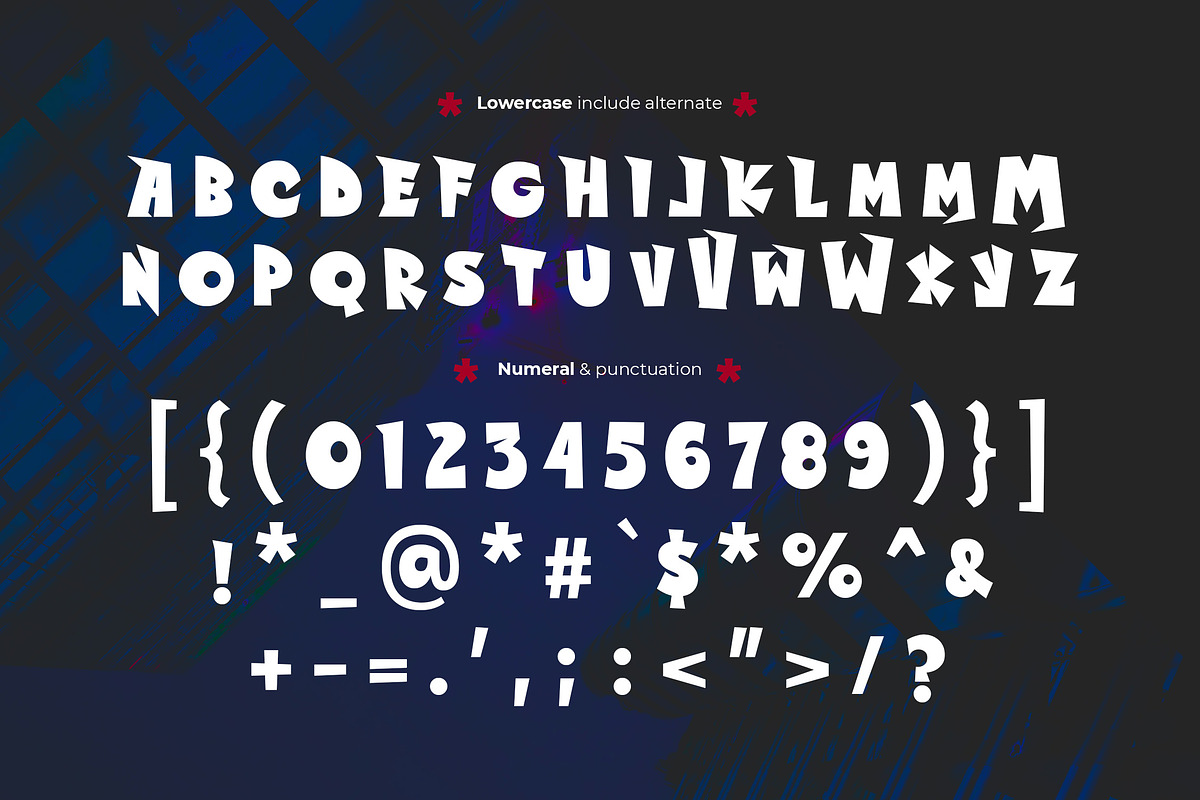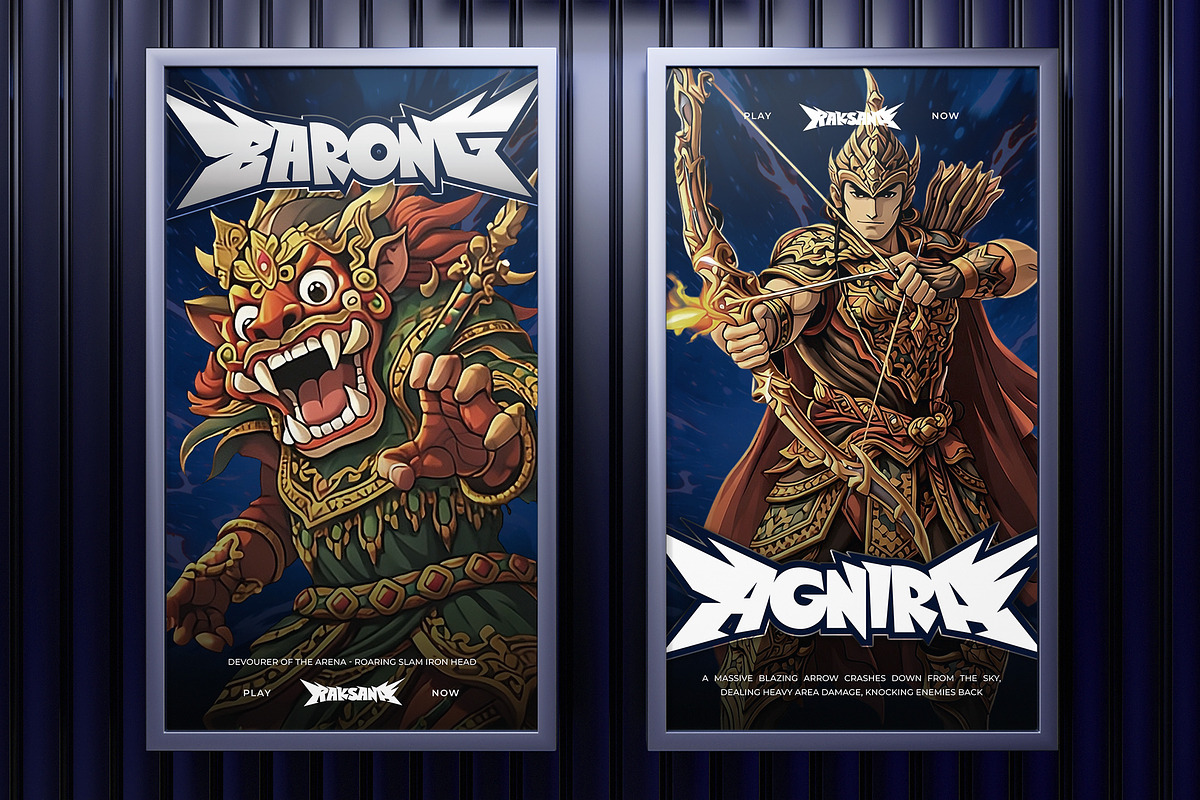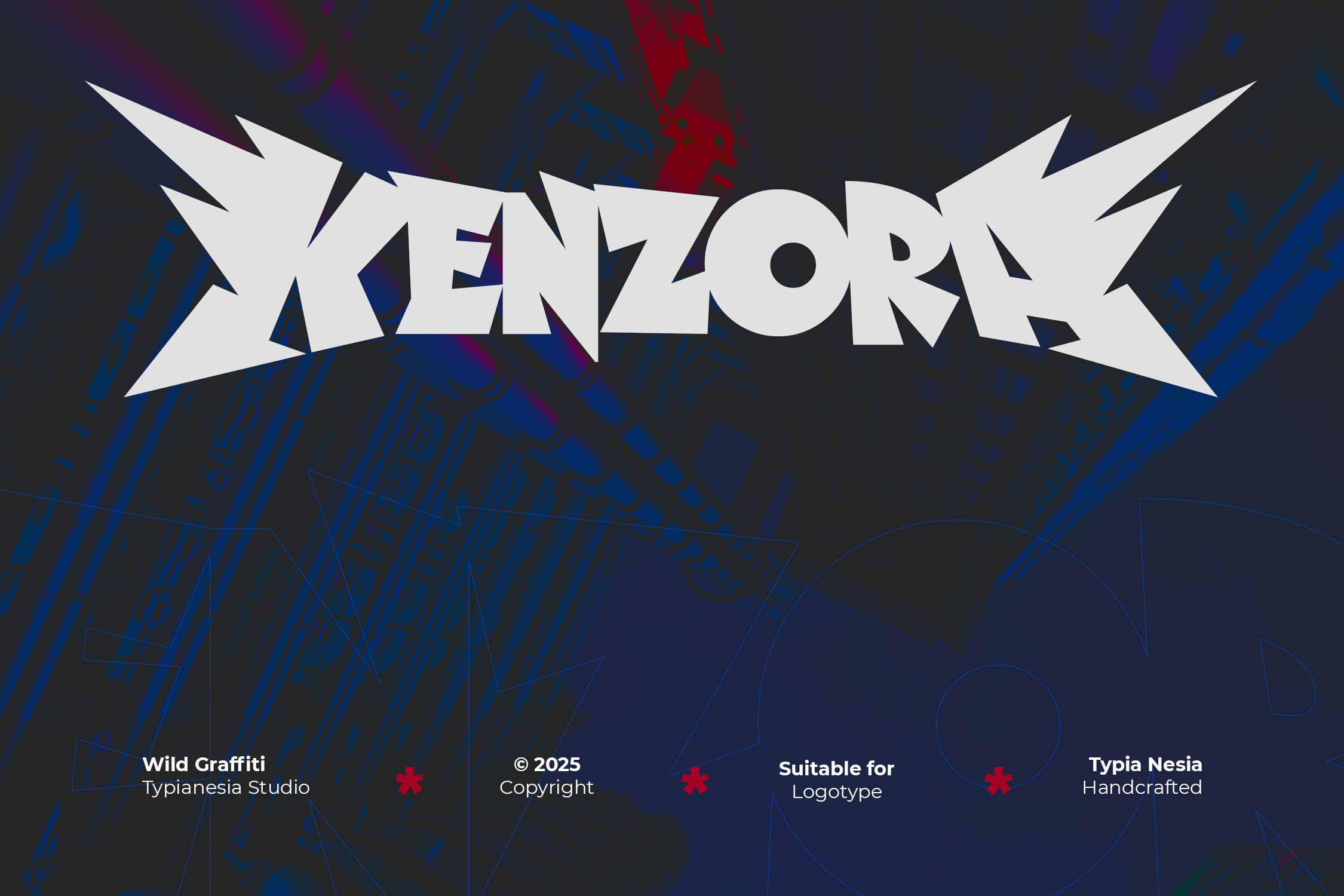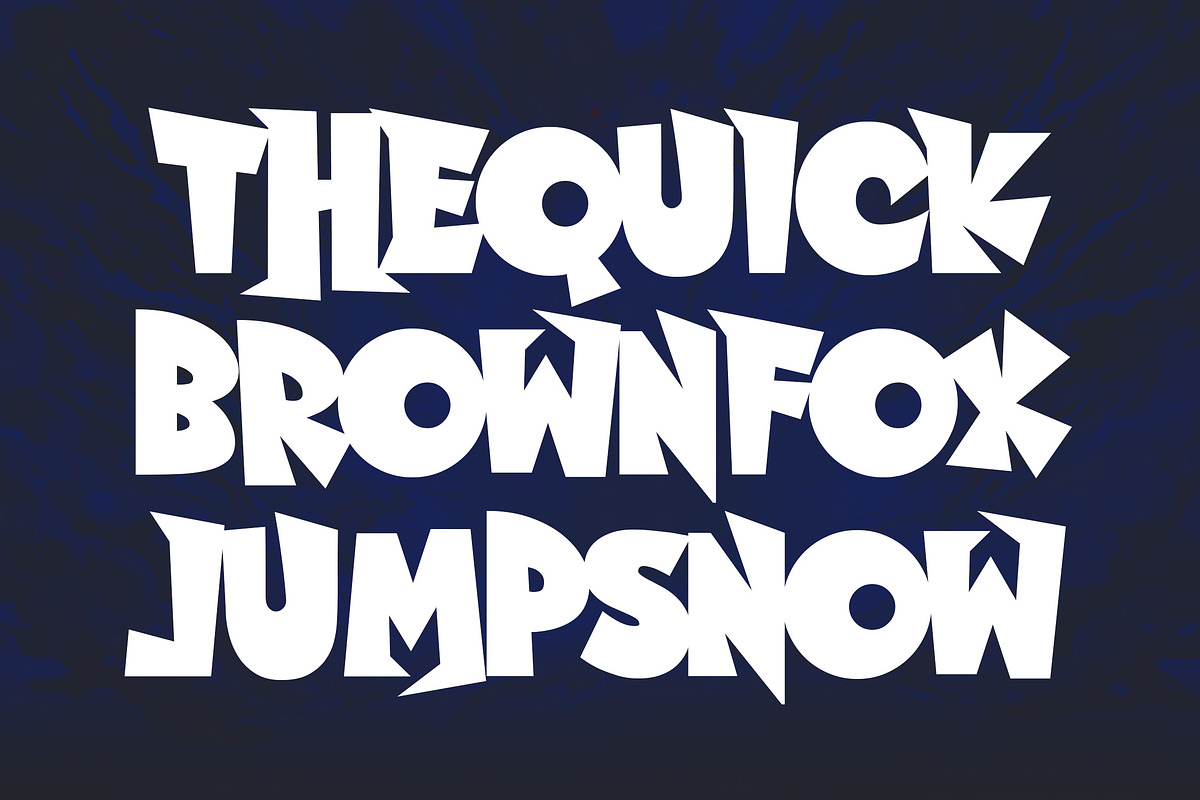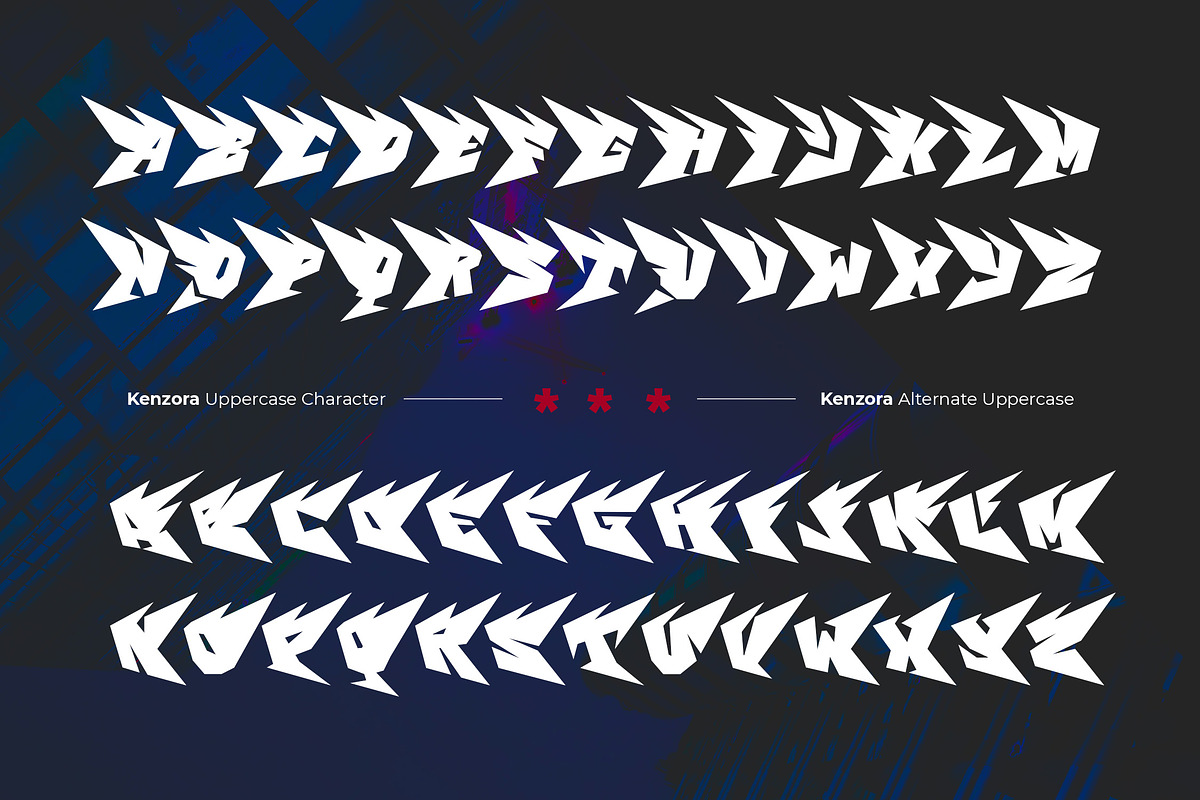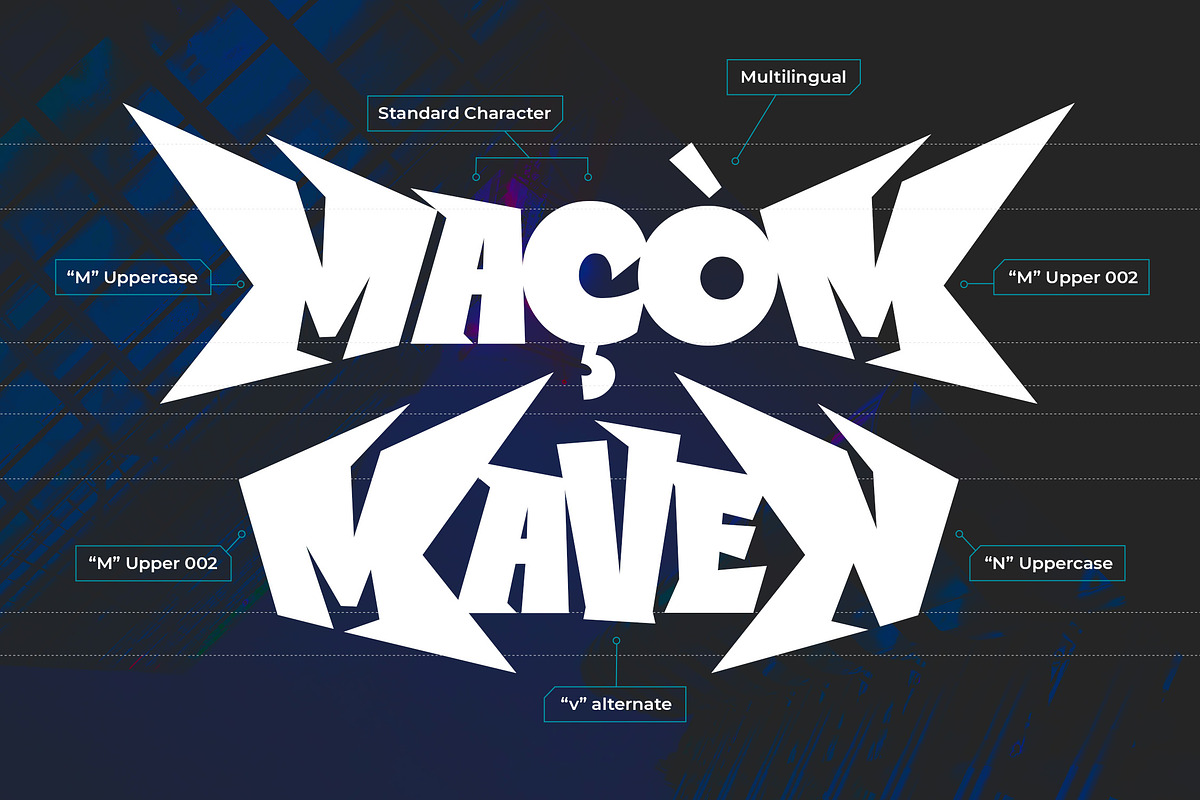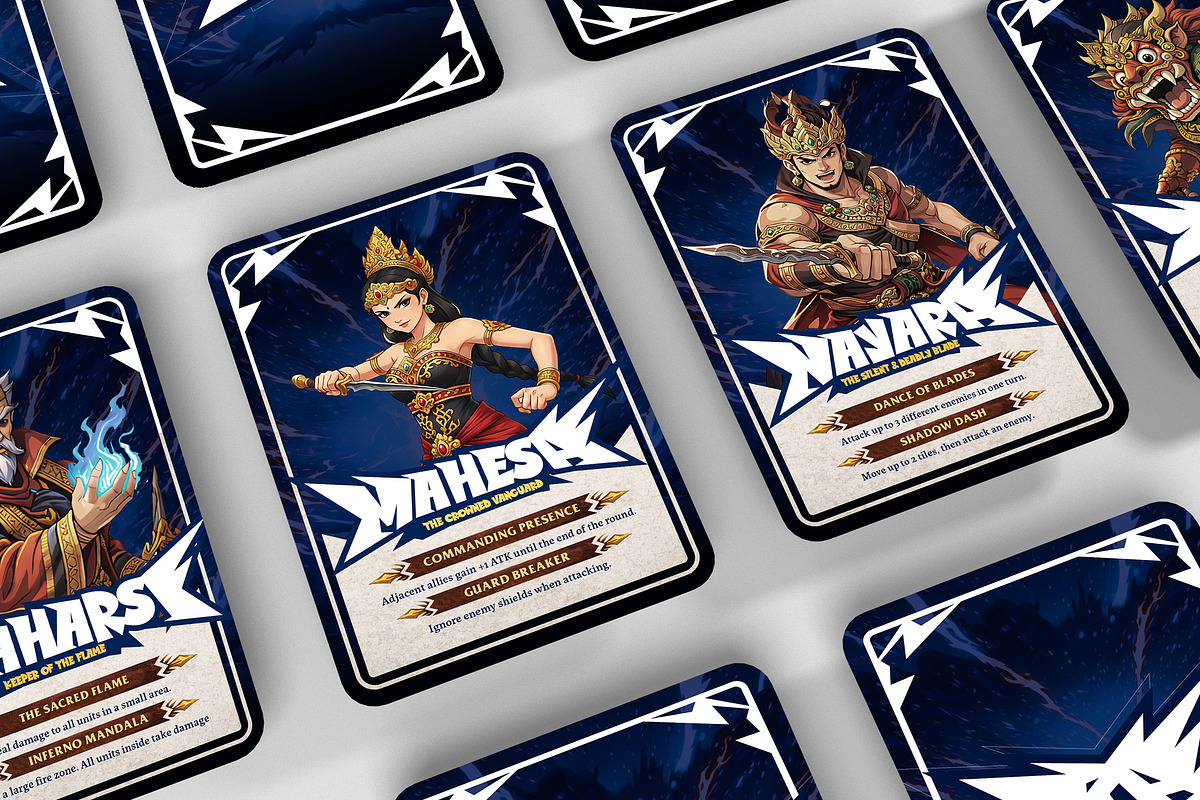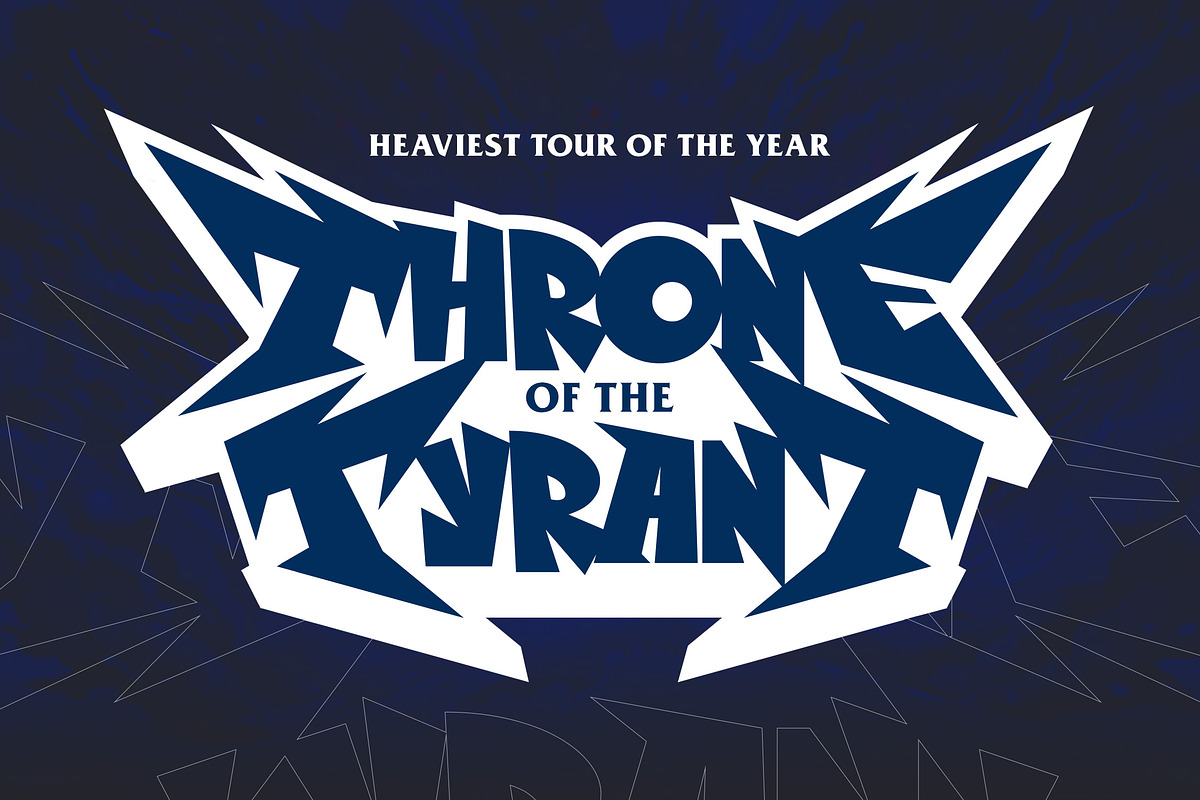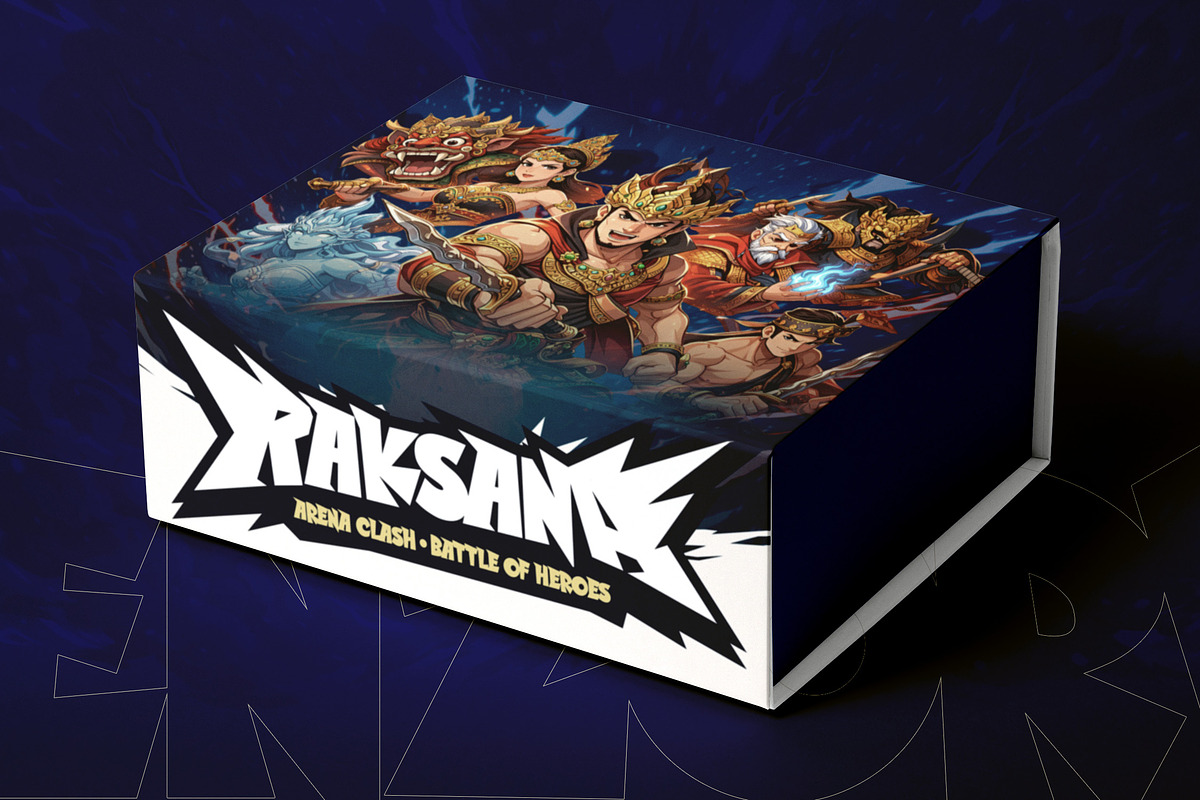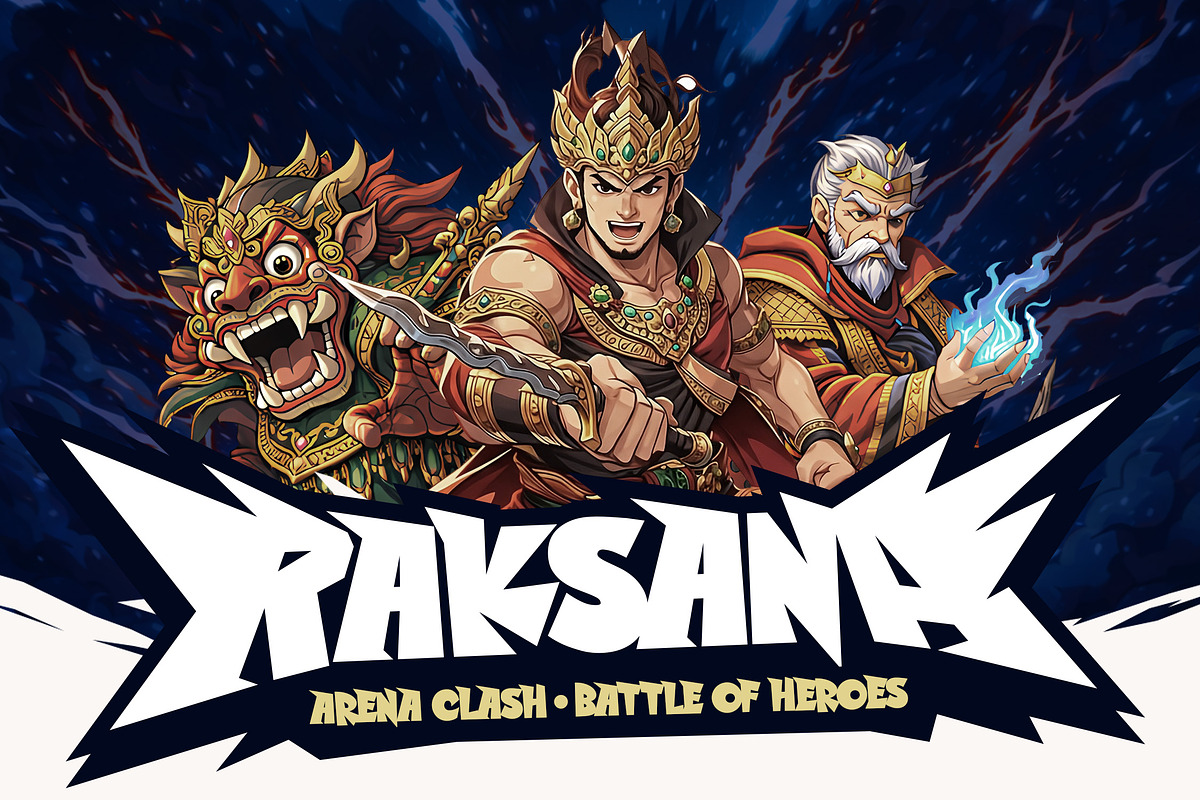
Kenzora – Superhero Game Logo Font
Kenzora – Wild Bold Graffiti Font - Superhero Fantasy Game Logo Font
Kenzora is a powerful modern graffiti display font designed to bring a wild, energetic, and heroic vibe to your visuals, blending graffiti attitude with modern fantasy aesthetics and making it perfect for game titles, RPG projects, esports branding, anime-inspired designs, comic visuals, posters, music and band artwork, Japanese-style graphics, superhero logos, striking logotypes, and any project that demands impact, intensity, and standout personality.